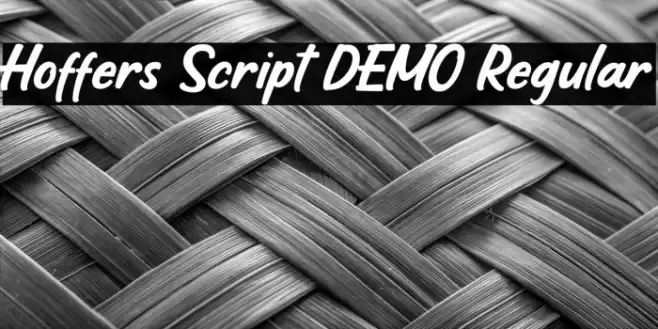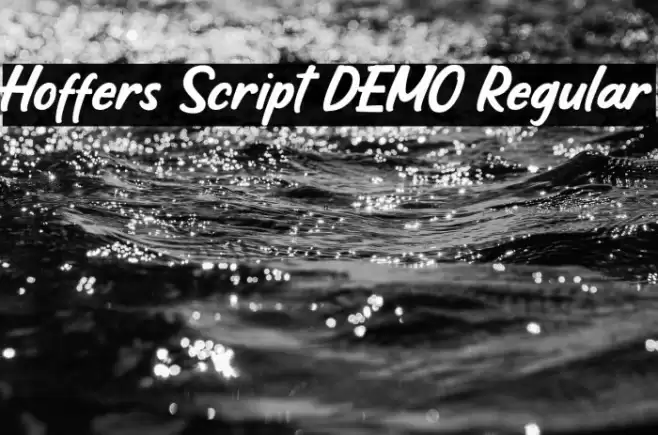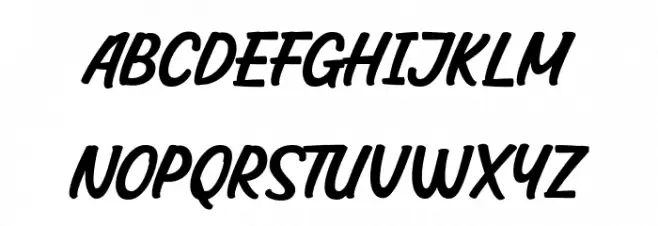
Hoffers Script DEMO Regular Font
Hoffers Script DEMO Regular Description
This font features a dynamic and fluid script style, characterized by its smooth, flowing lines and slightly slanted characters. The uppercase letters are bold and prominent, while the lowercase letters maintain a consistent rhythm and balance. The font exudes a casual yet elegant feel, making it suitable for a variety of creative applications. Its legibility is enhanced by the moderate spacing between characters, allowing for easy readability. The overall design is cohesive, with a harmonious blend of curves and angles that add a touch of sophistication.
A dynamic and fluid script font with smooth, flowing lines and a casual elegance from Regular fonts.
- Proposed Projects: Ideal for branding, invitations, greeting cards, and creative projects that require a personal touch.
- Use Case: Logos, Invitations, Greeting Cards